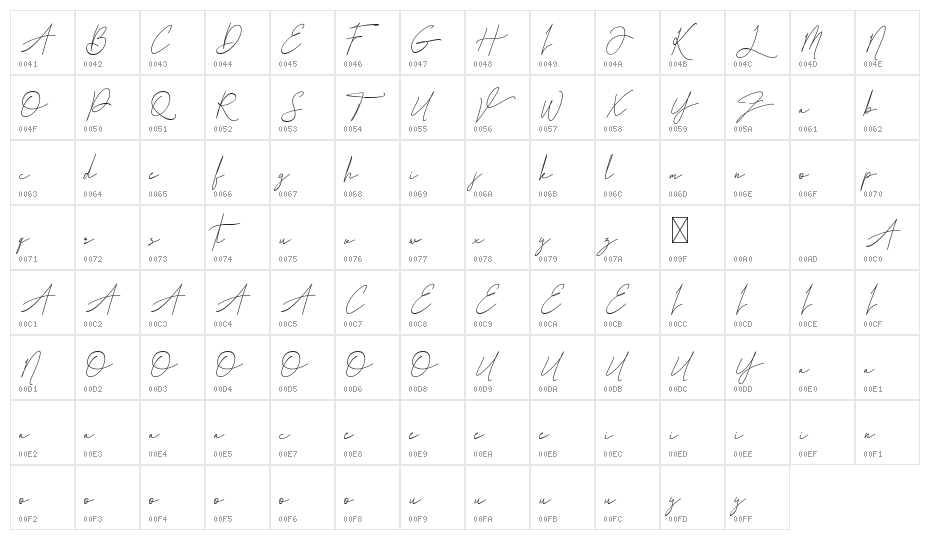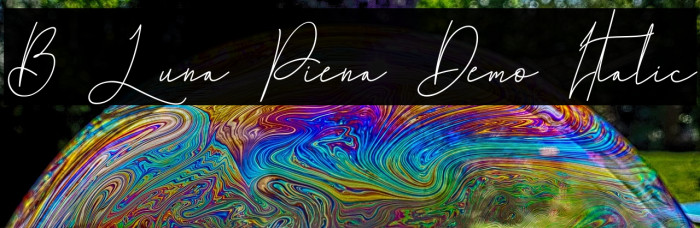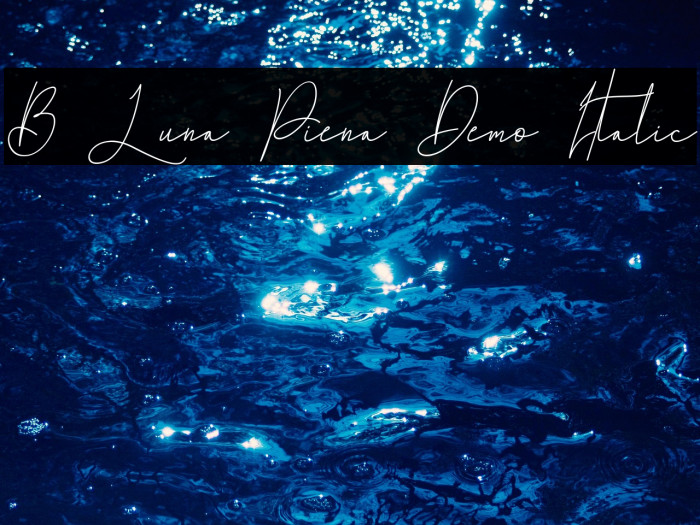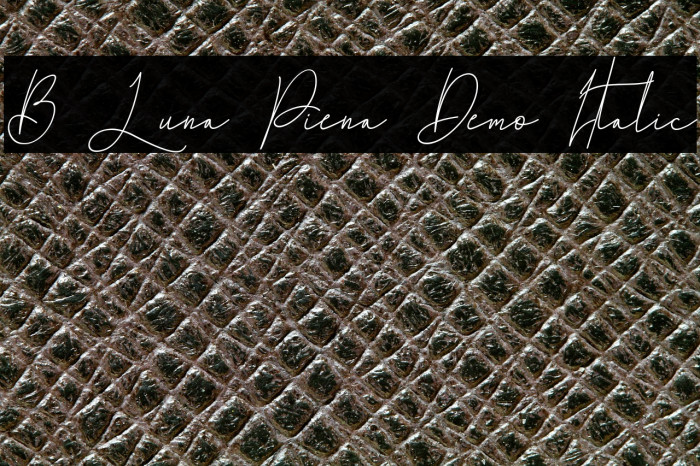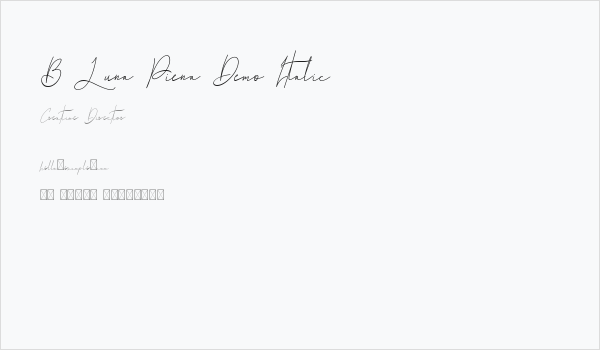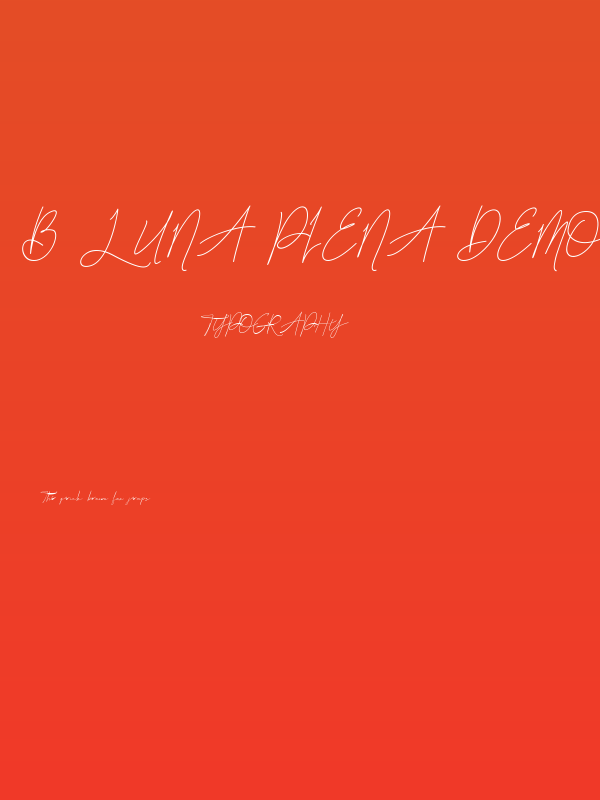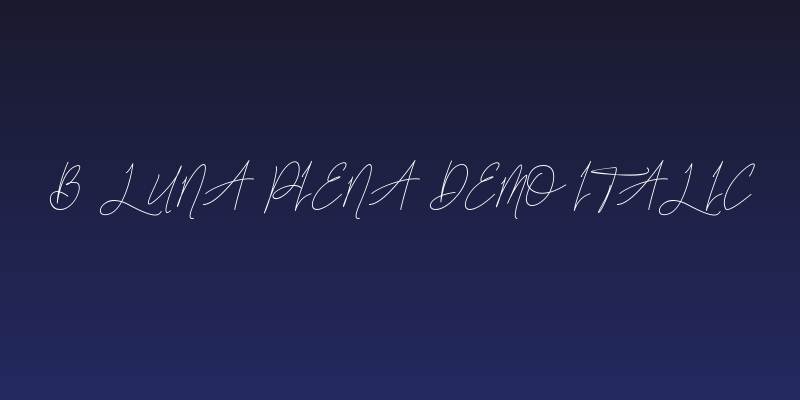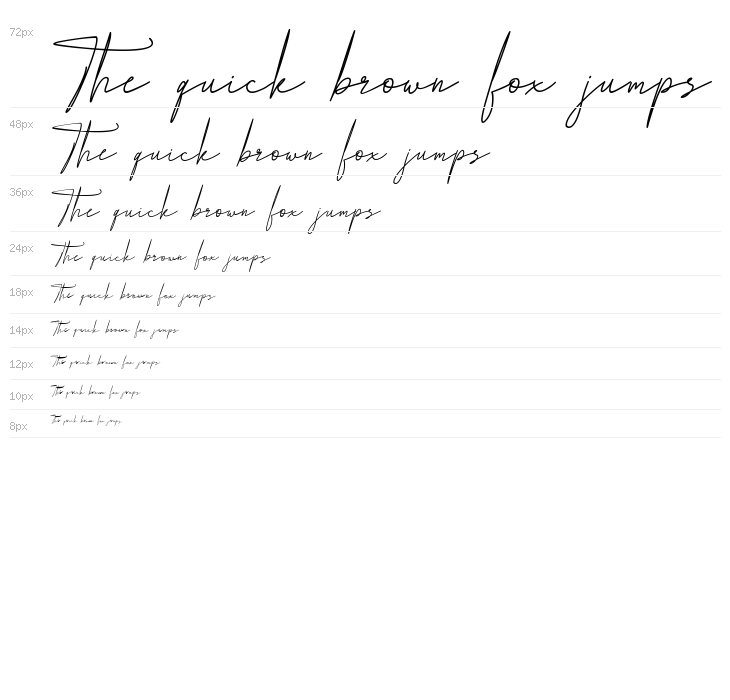
B Luna Piena Demo Italic Font
B Luna Piena Demo Italic Description
This font exudes a sophisticated and elegant style, characterized by its flowing, cursive script. The letters are connected in a fluid manner, creating a sense of movement and grace. The strokes are thin and delicate, giving it a light and airy appearance. The uppercase letters are tall and slender, while the lowercase letters maintain a consistent flow, enhancing readability. This font is perfect for projects that require a touch of elegance and personal flair, such as wedding invitations, greeting cards, or branding materials. Its handwritten style adds a personal touch, making it suitable for creative and artistic endeavors.
| Use Case | Headlines, Invitations, Artistic projects |
| Proposed Projects | Ideal for wedding invitations, greeting cards, branding materials, and artistic projects. |